Terminal
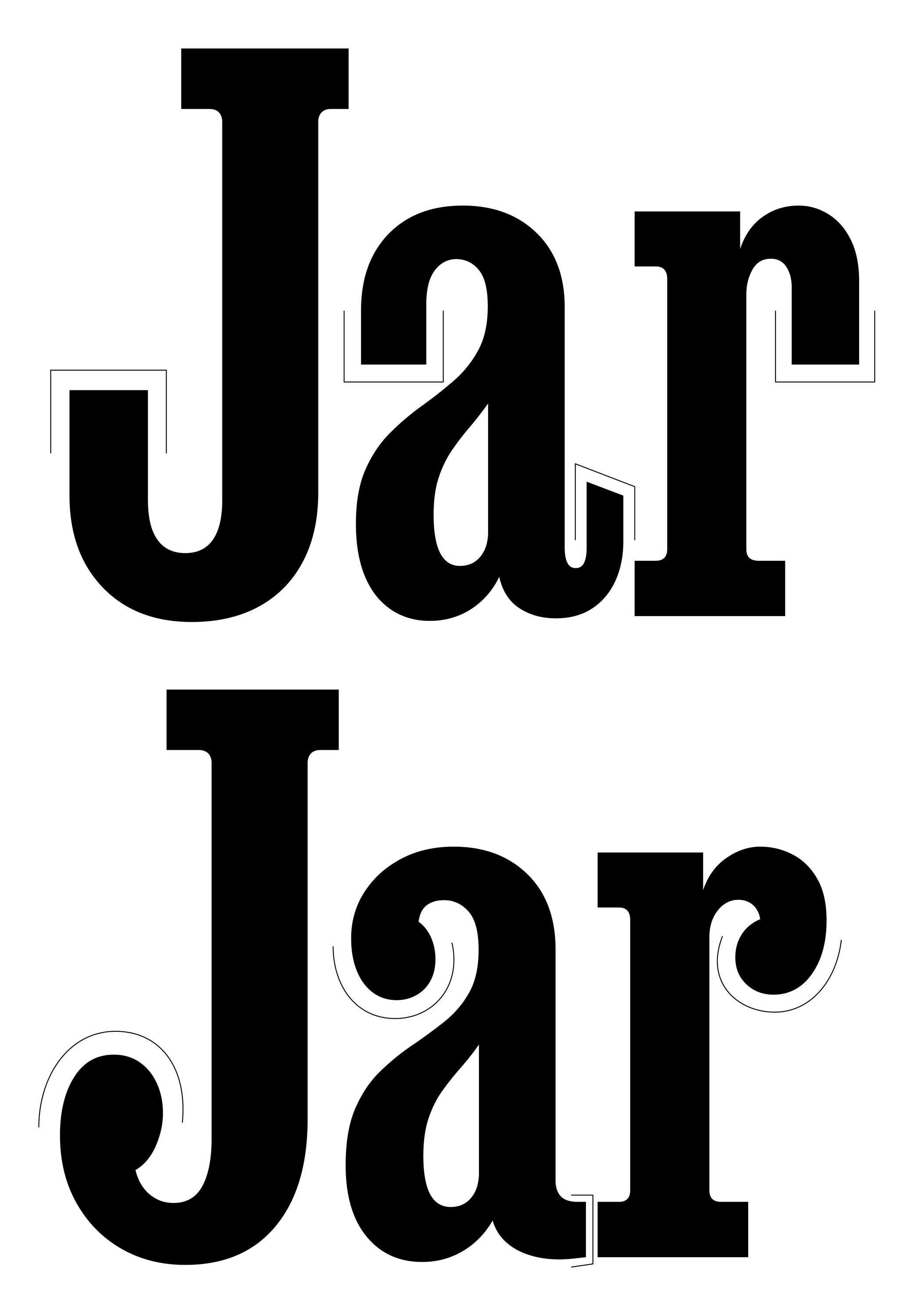
Many terms are borrowed from architecture or human and animal anatomy to designate and describe parts of letters and other characters. We even speak of type design anatomy.
The terminal of a character is its very last part, according to its ductus. The shape of the terminal can vary depending on the style of the typeface, with names that ‘feel’ most suited to its shape (drop, ear, serif, etc.).